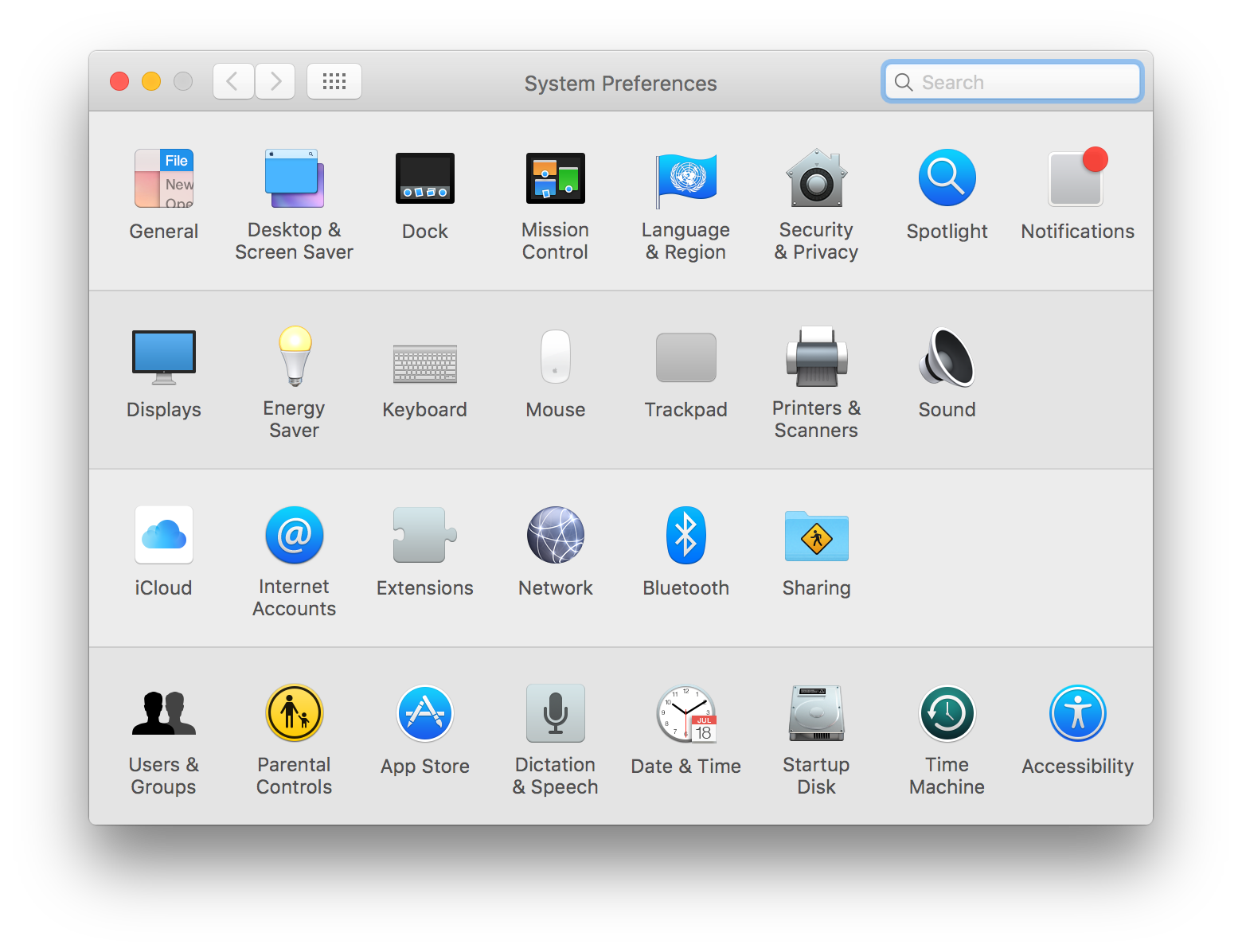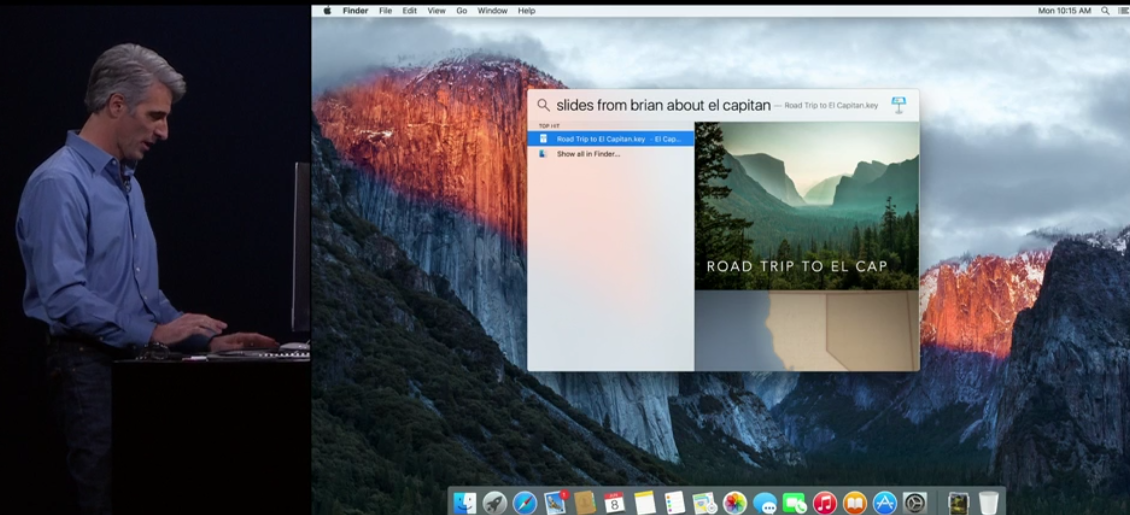
I don't like the sound of this.a modern and easy-to-read typeface that looks stunning on a Retina® display. ..."
It lists 'new system font' as one of the new features in the keynote, I think this is something that will be introduced fully in a later build. I also noticed the similar thing on the iOS 9 demo, the new Siri screen was in San Fransisco whilst the rest of the UI was Helvetica. It's a bit odd that they didn't get this sorted for the keynote, must have been a last minute change.
I noticed that as well:
Spotlight doesn't use the system font for the search text in Yosemite either though. It's quite noticeably still Helvetica on my iMac despite the system font change to San Francisco.
That's a helvetica-ish version of San Francisco, not helvetica. Look closer.
You're right, I just posted this comparison on another thread. San Francisco on the left, 10.11 font on the right.That's a helvetica-ish version of San Francisco, not helvetica. Look closer.
No, you can't choose San Francisco as installed by default. However, if you go to previously used, "System Font" show up and in the font file it says "San Francisco is a trademark of Apple Inc.".If you open TextEdit is the San Francisco Font available to use in a document?
I don't like the sound of this.
They need to optimize for those "ancient" non-retina screens too. I have a retina display, but it's closed 90% of the time hooked up to 24" displays with a 96 PPI. While not terrible, it's certainly not retina. Don't build for displays that 75%+ of your consumers don't use.
I think by release this will be ironed out and San Francisco will be made available. I wouldn't be surprised if Apple is still assessing the look and feel of iOS and OS X.No, you can't choose San Francisco as installed by default. However, if you go to previously used, "System Font" show up and in the font file it says "San Francisco is a trademark of Apple Inc.".
There doesn't appear to be in the first beta.CAN SOMEBODY TELL ME: One feature I REALLY wanted in Yosemite was a bold font option. Is there one under accessibility for El Capitan?
There doesn't appear to be in the first beta.
Here is a better font comparison. Helvetica Neue followed by the 10.11 version of San Francisco.Pity. But in the screenshot you posted earlier (which I appreciate BTW) the font looks slightly bolder to me.
Here is a better font comparison. Helvetica Neue followed by the 10.11 version of San Francisco.
You're right, I just posted this comparison on another thread. San Francisco on the left, 10.11 font on the right.